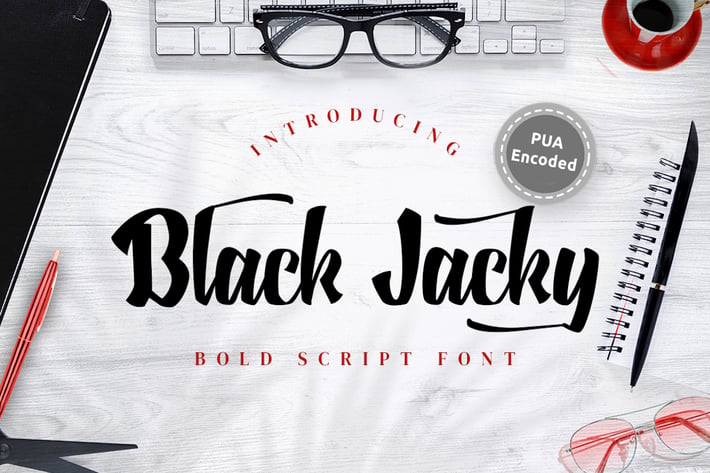
Black Jacky - Bold Script Font
Introducing Black Jacky bold script font with tons of alternate characters and OpenType features. This font perfects to use for any kind of design such as branding projects, logo, brochures, business cards, wedding designs, social media posts, advertisements, product packaging, product designs, label, photography, watermark, invitation, brand company, stationery, any design project.
Black Jacky comes with more than 240 glyphs! Specific OpenType features include stylistic alternates, optional final forms, multiple alternate glyphs for many letters (accessed through the glyphs panel), multilingual support (including multiple currency symbols), and ligatures.